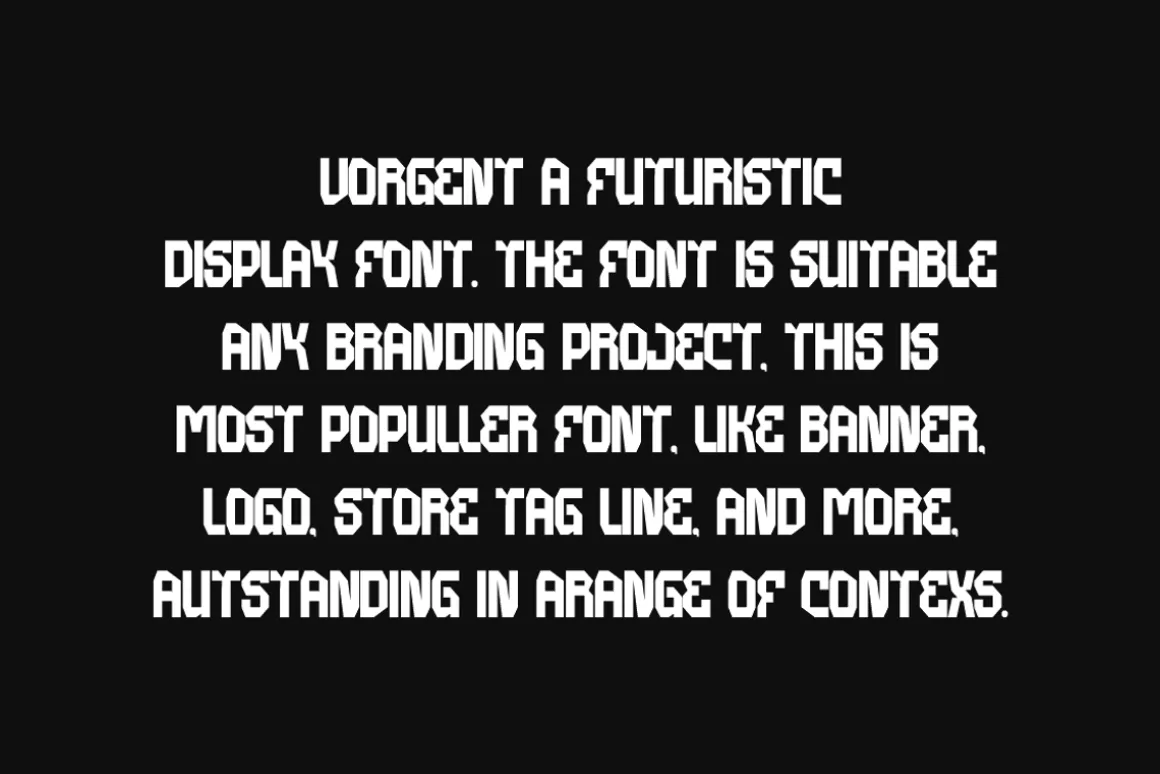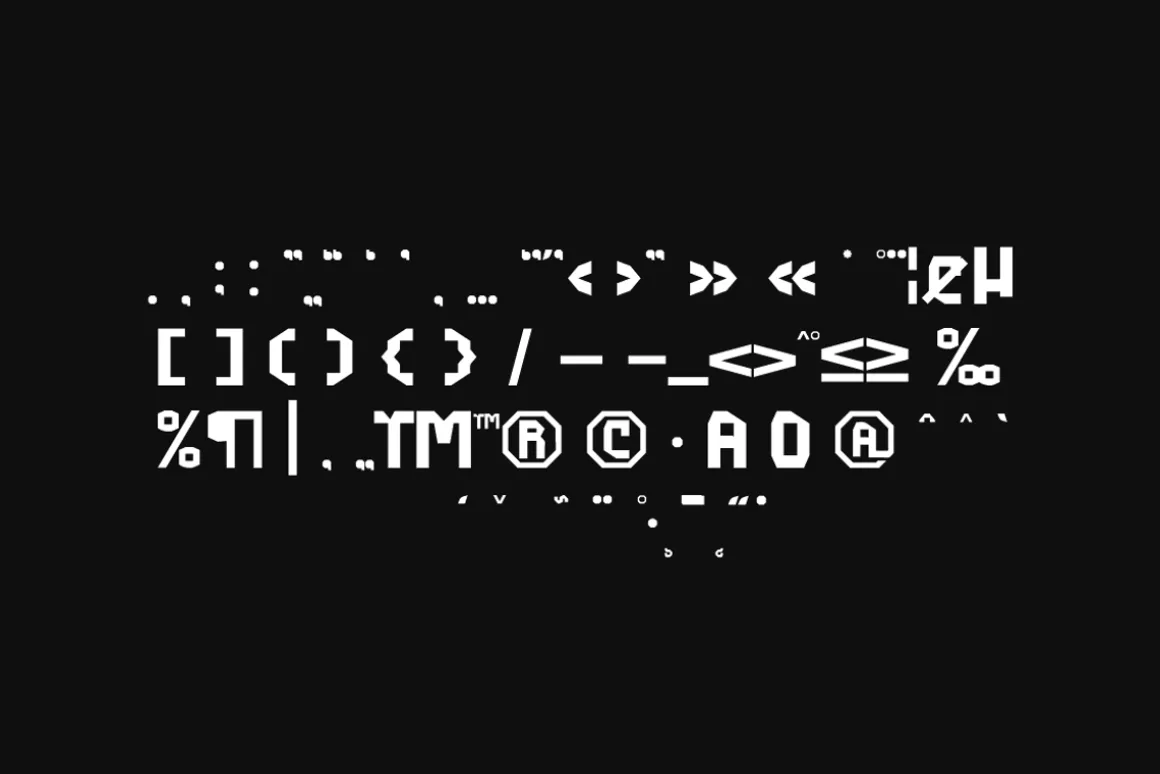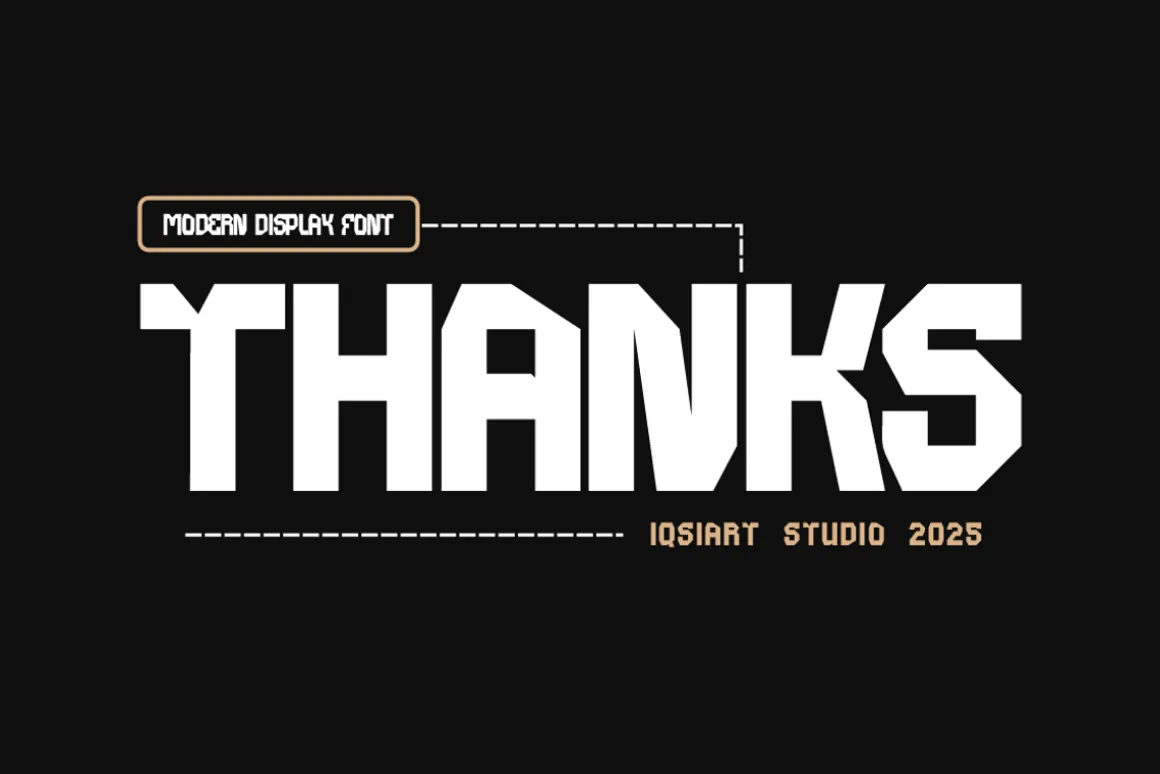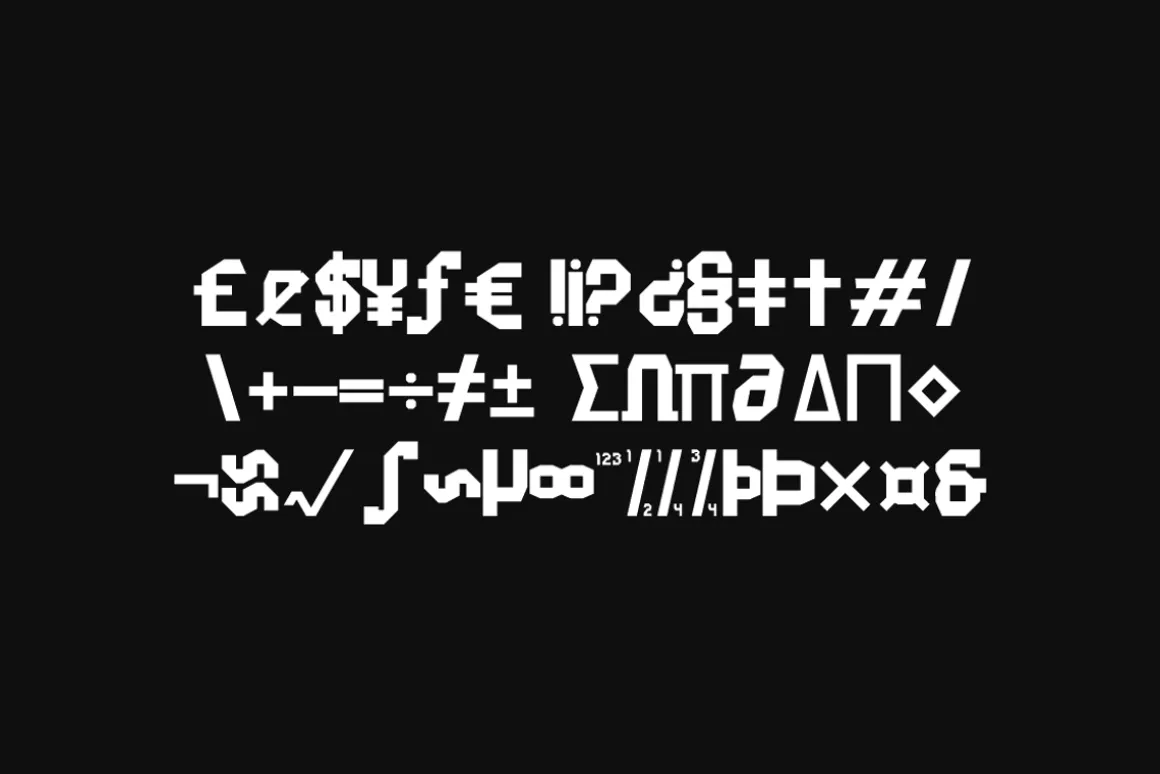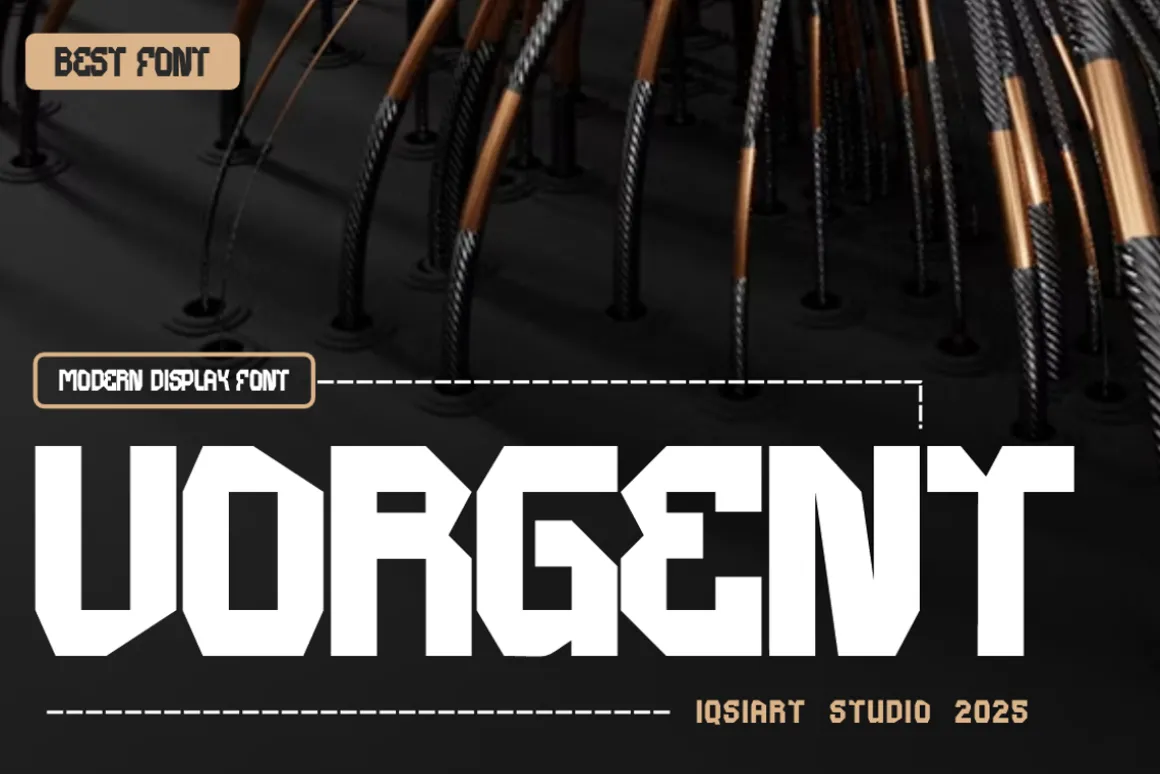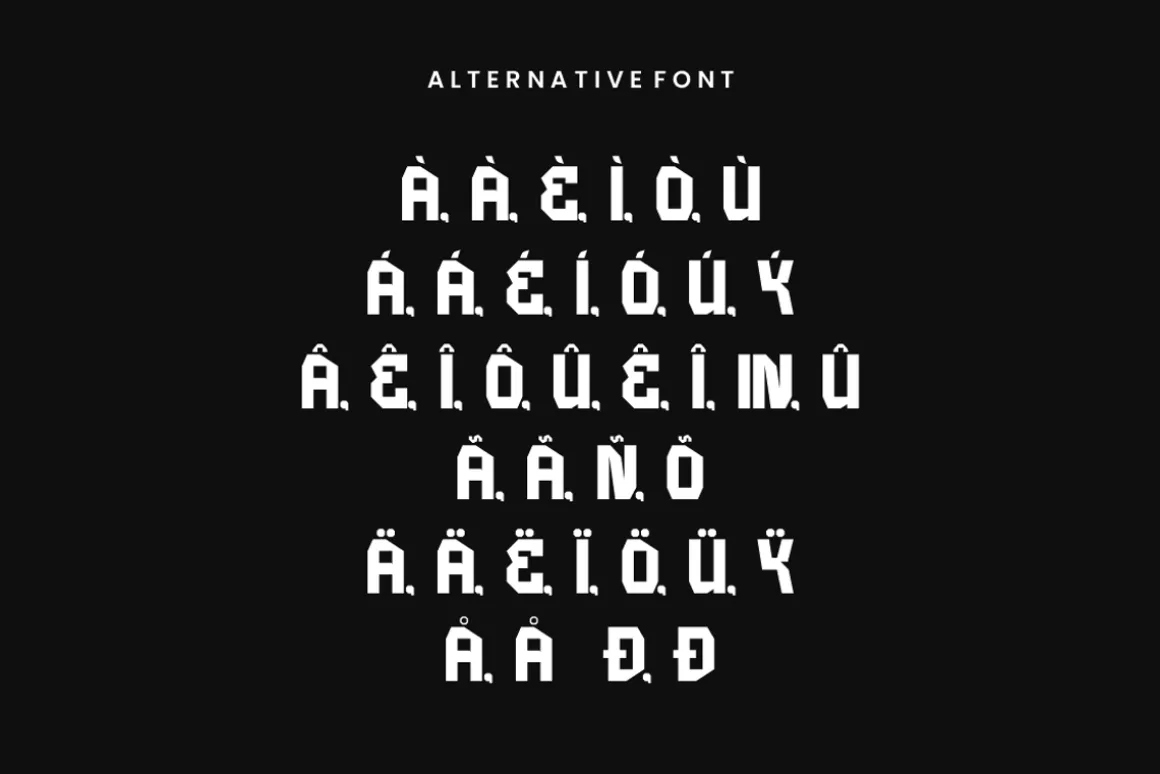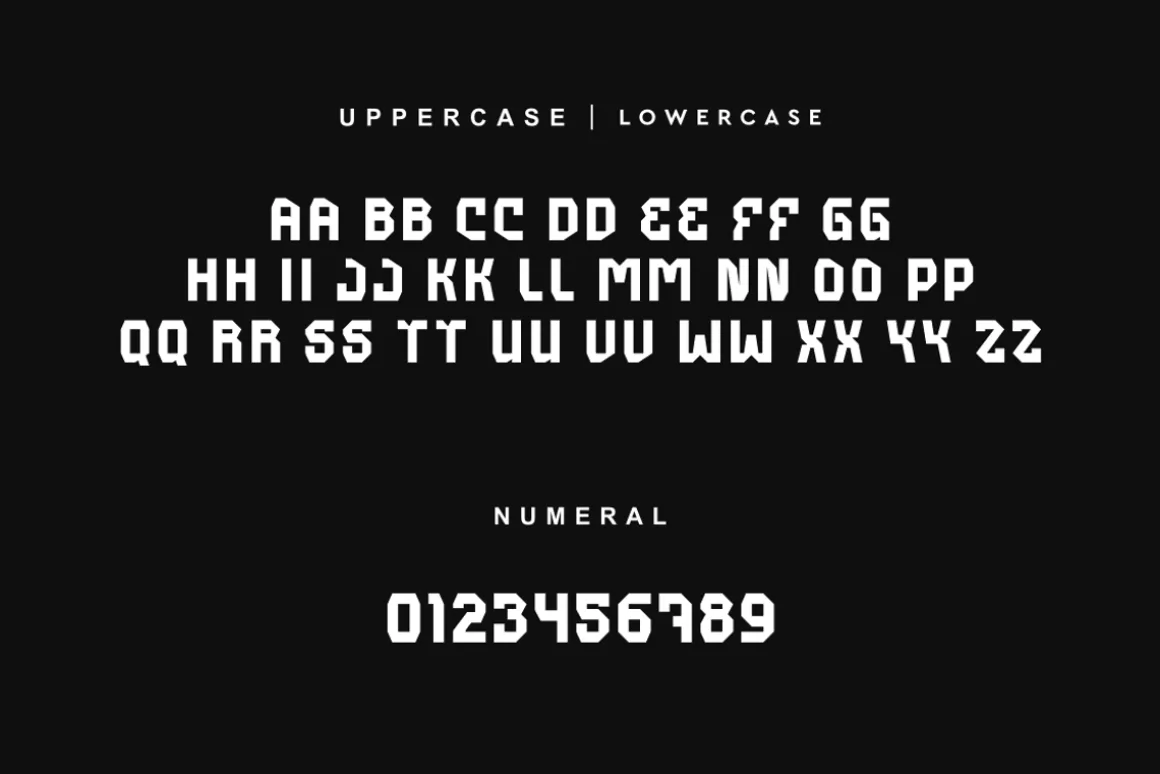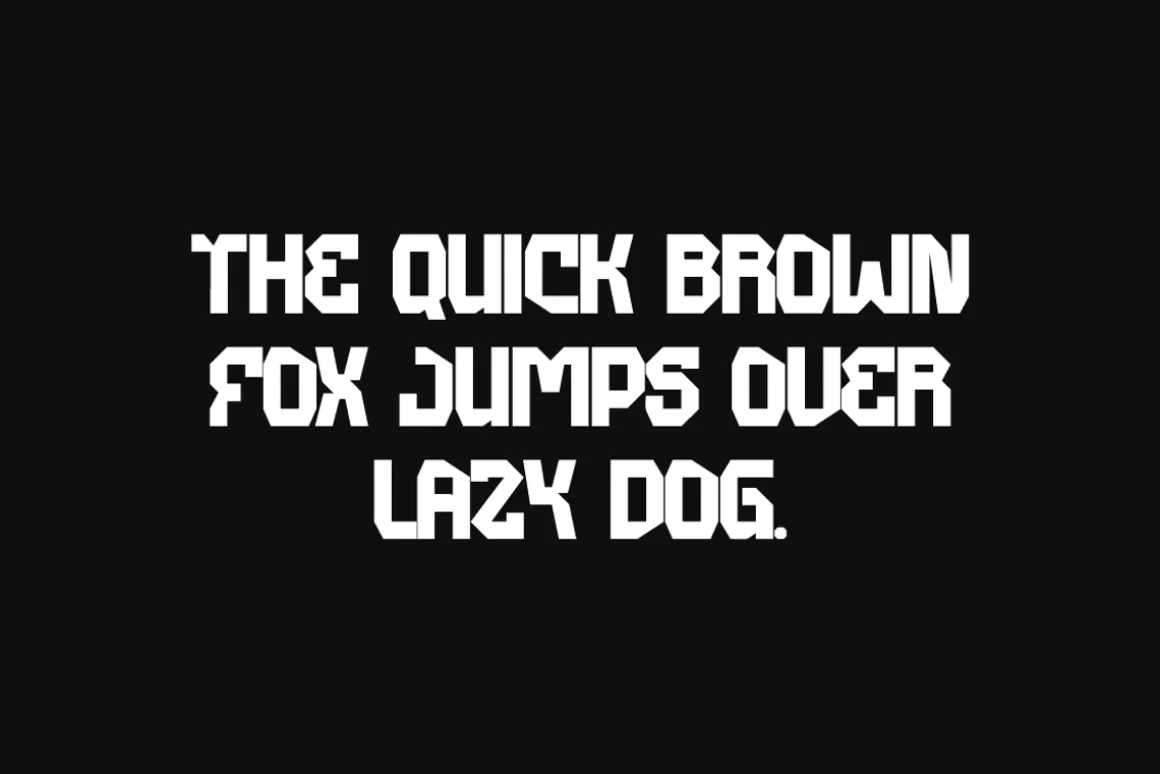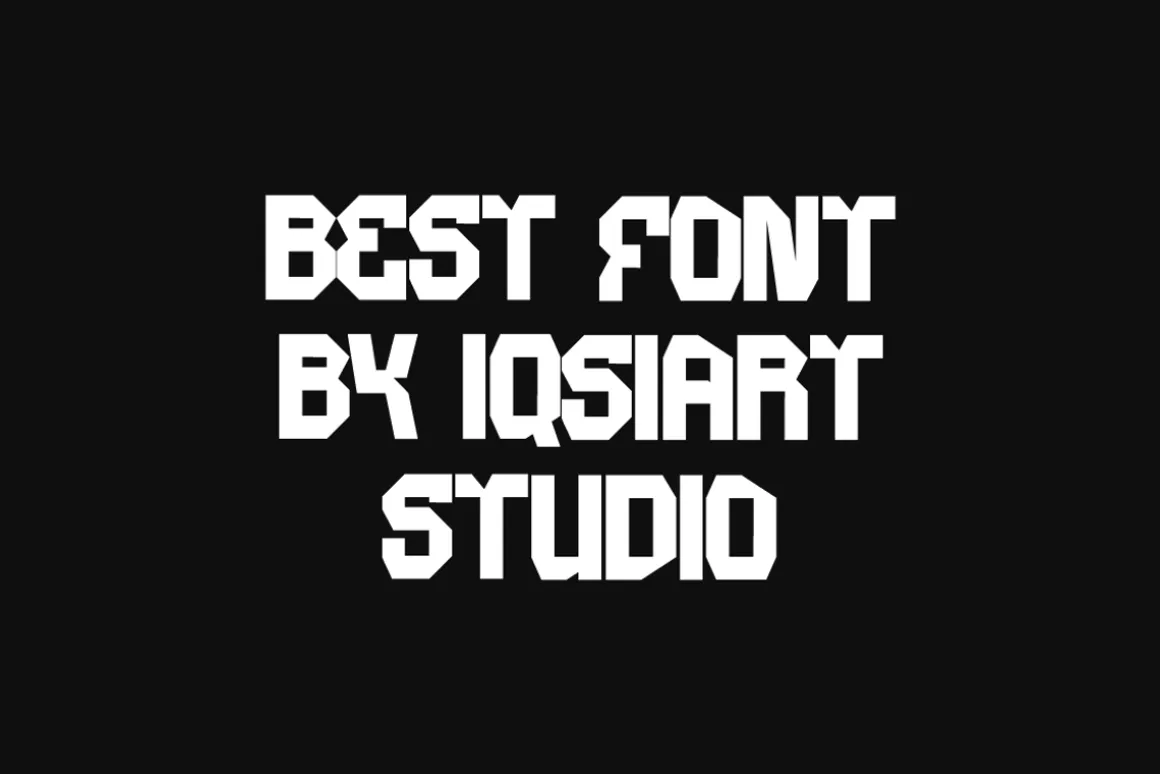
Vorgent Font is a best and authentic display font.This font can be used for your various needs.We provide various themes and font styles.visit our profile to get a wide variety of themesand different font styles you need.